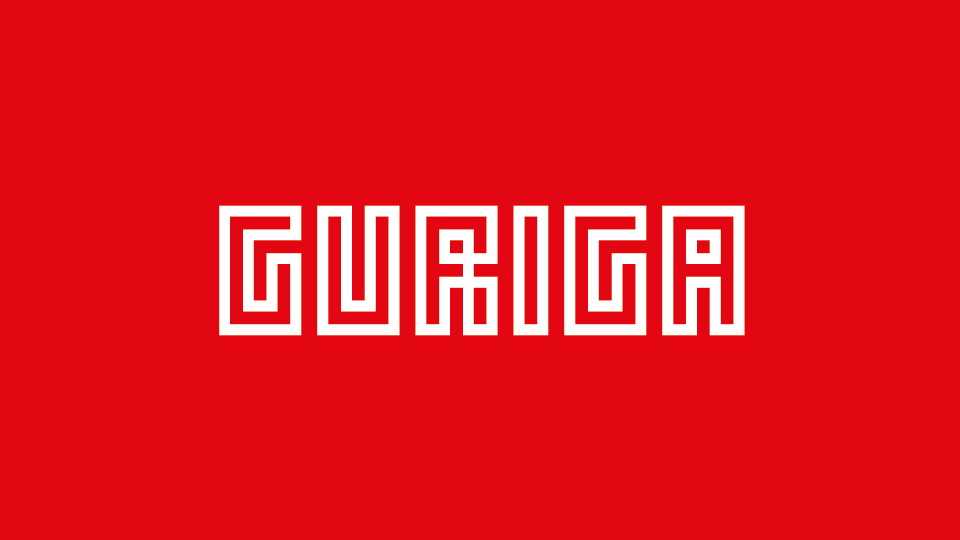
Download Guriga font, a creative geometric display all caps typeface. Guriga is great for posters, logos and many kind of headlines.
Designer: Zoltán Zeman